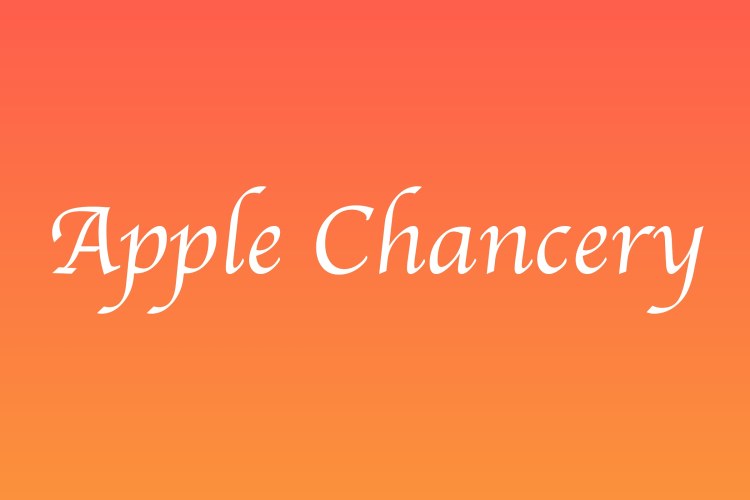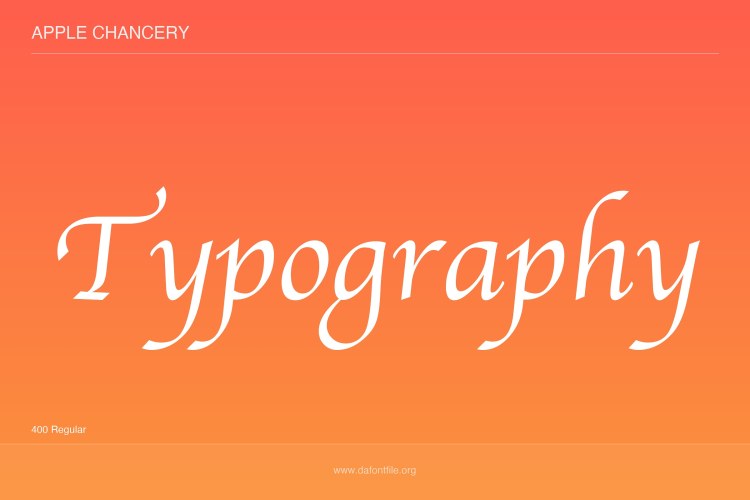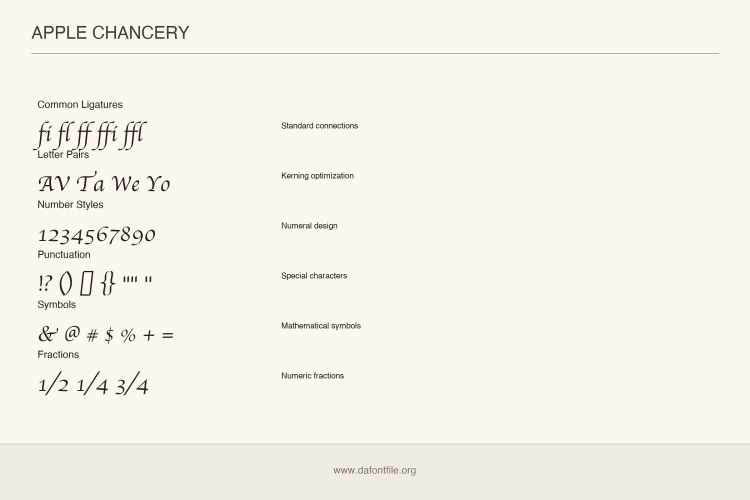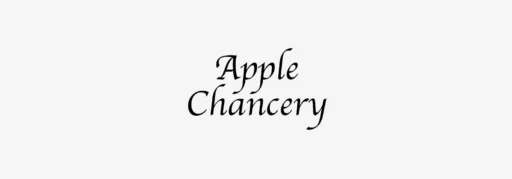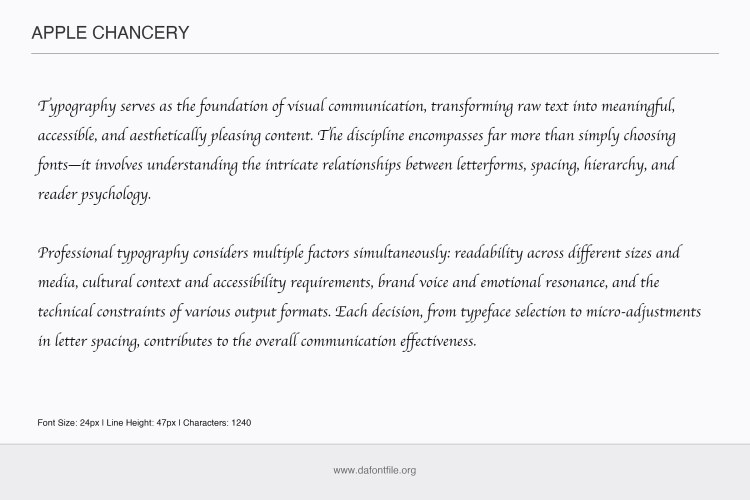
Apple Chancery Font
Apple Chancery adds a handwritten, calligraphic touch to text. The font shows elegance through its flowing curves and classic style. Designers use it for invitations, certificates, branding, and formal designs. They choose Apple Chancery when they want to bring sophistication and warmth to their projects.
Where Apple Chancery Font works best
Apple Chancery Font is built for size: event posters, hero headlines and billboard-style layouts.
High contrast display type like Apple Chancery Font reads instantly in thumbnails and motion graphics.
What is Apple Chancery Font good for?
Apple Chancery Font is a Display Fonts typeface tagged Branding, Calligraphy, Classic, Display. It works well for headlines, logos, posters, social media graphics and branding projects that need a distinctive display fonts look.